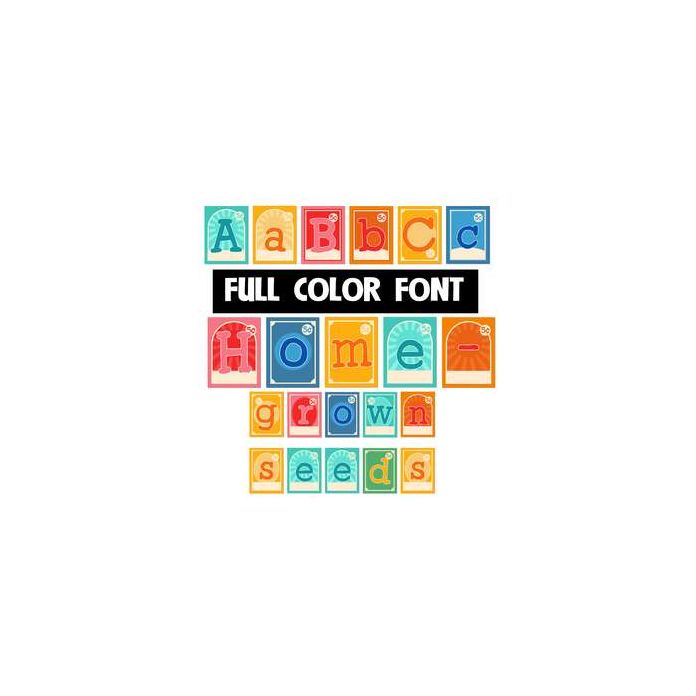
This full-color font features lettering on seed packets. This font works best for titles, displays, posters and more. Please note color fonts will show as black in non compatible programs. This font type is compatible with Silhouette Studio.